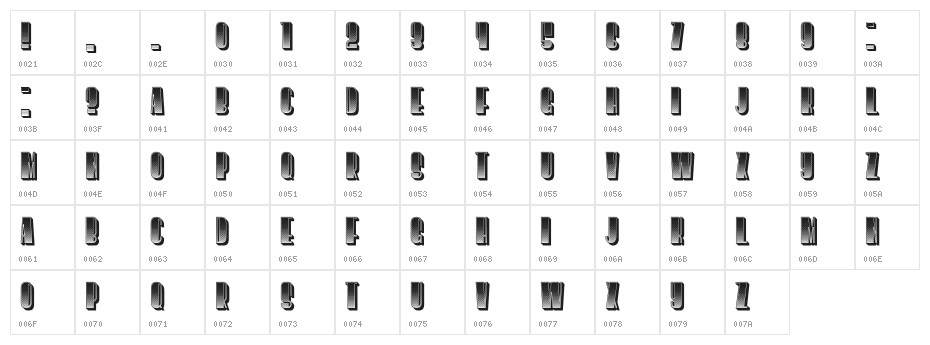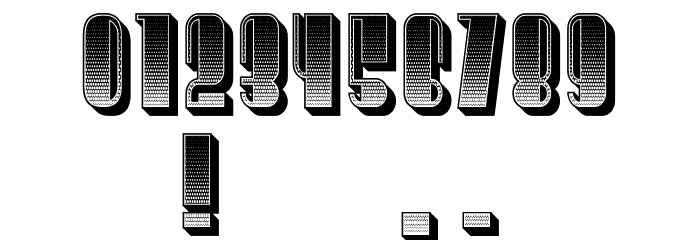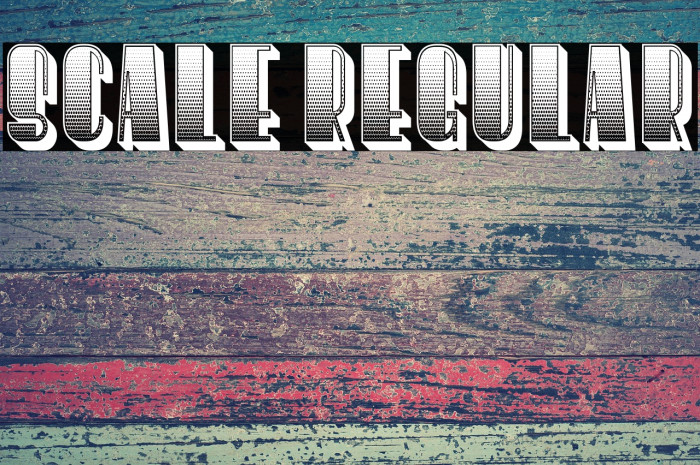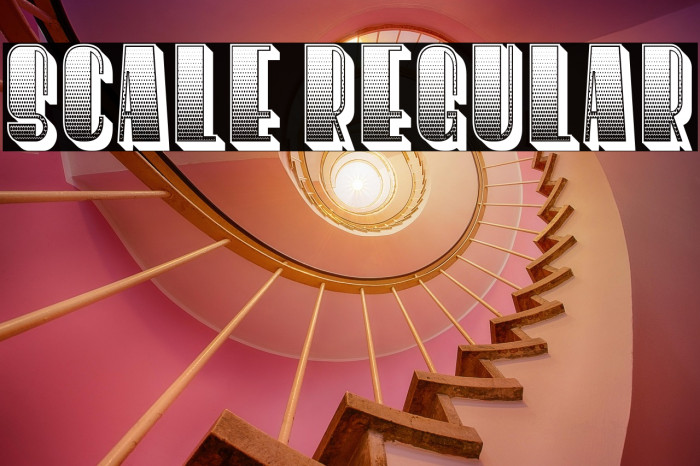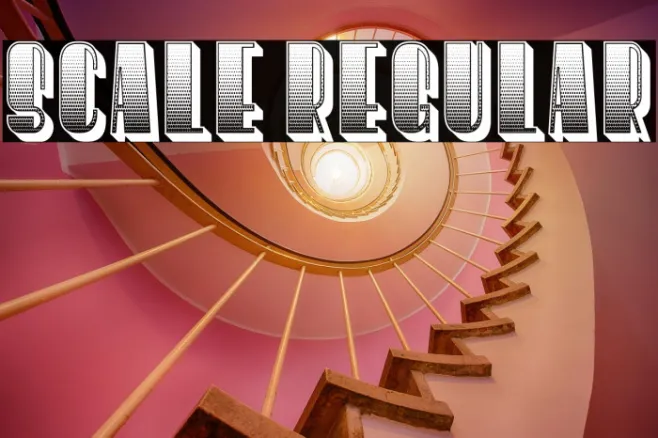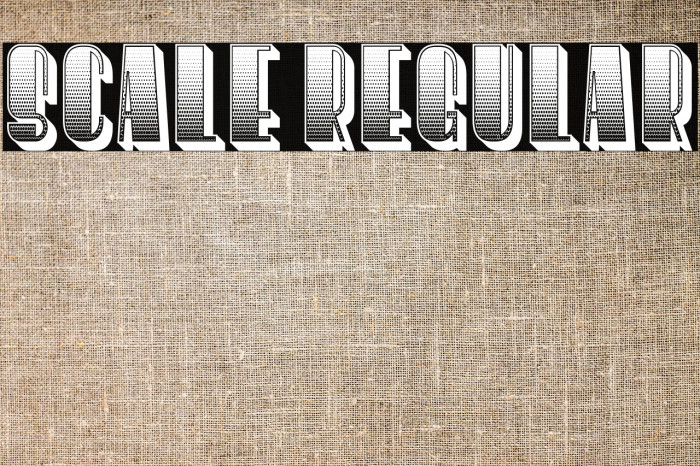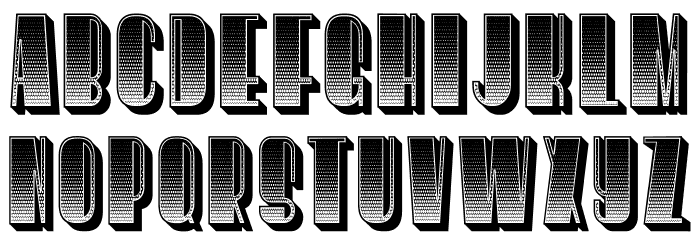
Scale Regular Font
Scale Regular Description
This font features a bold, three-dimensional design with a strong presence. Each character is outlined with a thick black shadow, creating a striking contrast against the white interior. The interior of the letters is filled with a dotted pattern, adding texture and depth. The font has a vintage, industrial feel, reminiscent of old signage or posters. Its boldness and unique style make it ideal for eye-catching designs. The uppercase letters are uniform in height, and the numbers and special characters maintain the same stylistic elements, ensuring consistency across all glyphs.